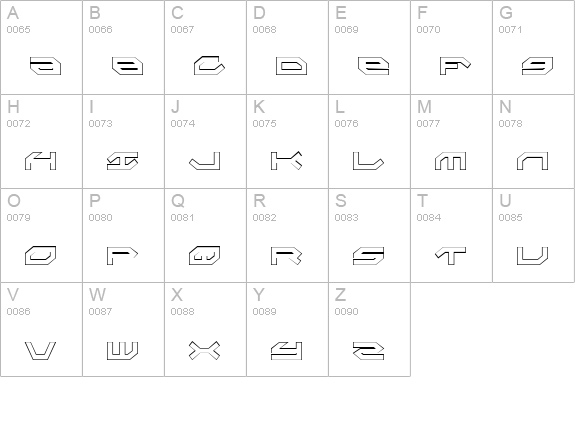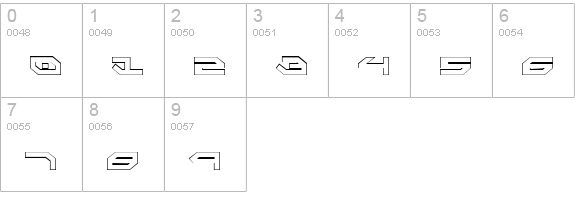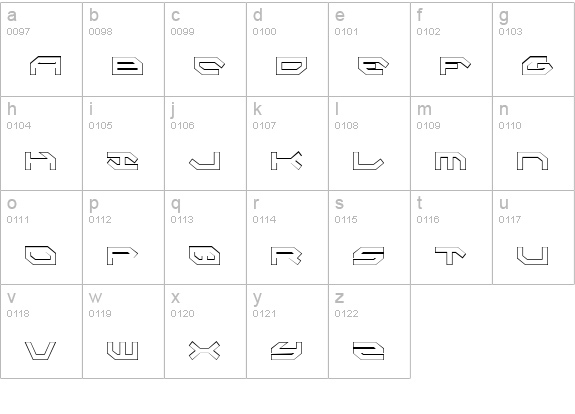
Taskforce Condensed Outline is a distinctive, condensed-width variant in the Taskforce typeface family \xE2\x80\x94 well suited to design and typography projects.
Taskforce Condensed Outline font is a modern and sleek typeface that exudes a sense of strength and efficiency. With its sharp lines and bold presence, this font is perfect for conveying a message of determination and focus. The condensed style adds a touch of sophistication, making it ideal for projects that require a clean and contemporary look. What's even better is that Taskforce Condensed Outline font is available for free download at FontsMarket.com. This means you can easily access this versatile font for any of your design needs without any cost. Whether you're working on a branding project, poster design, or website layout, Taskforce Condensed Outline font will help you achieve a professional and polished result. Download it now and elevate your designs with this impactful typeface.